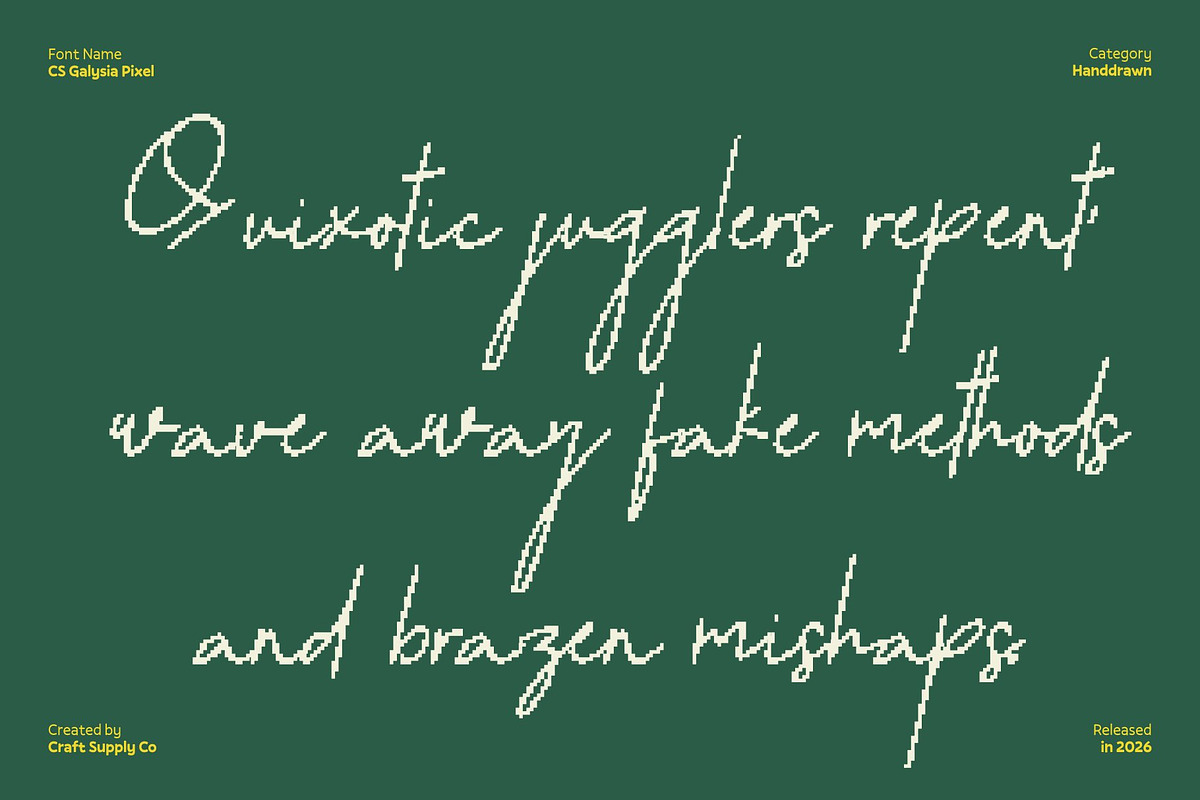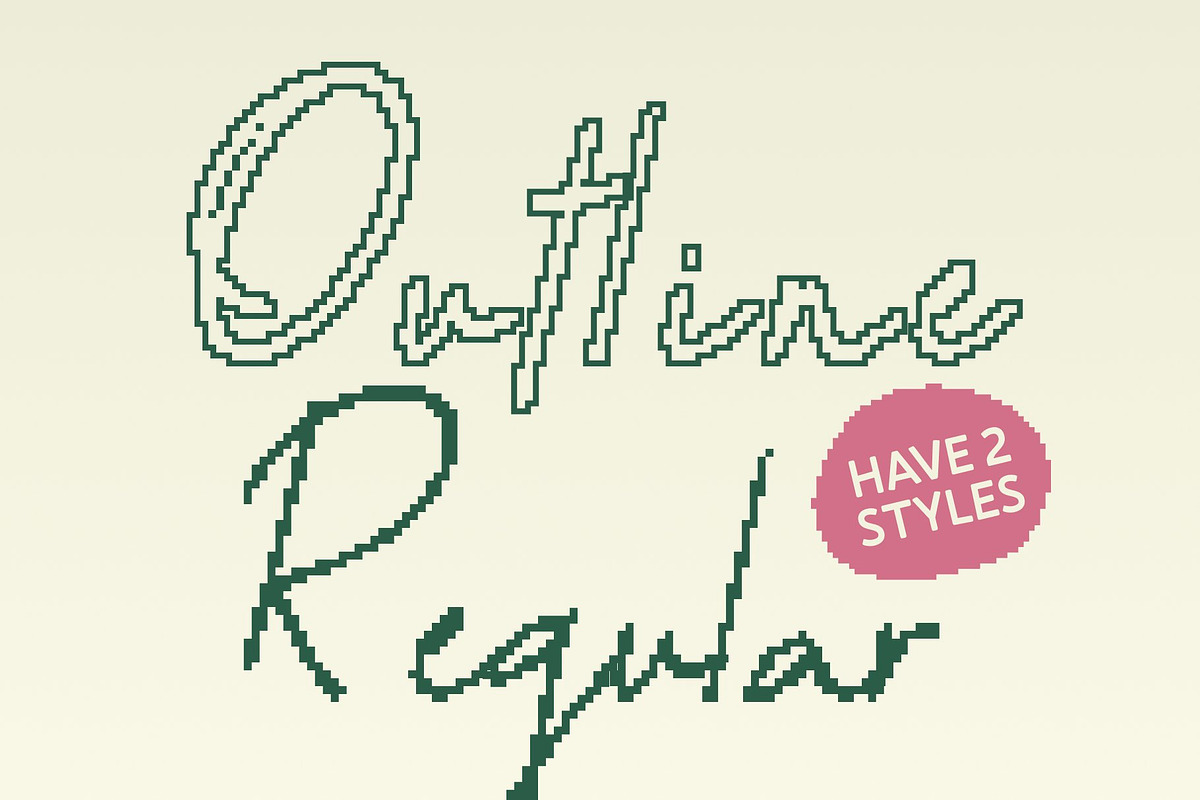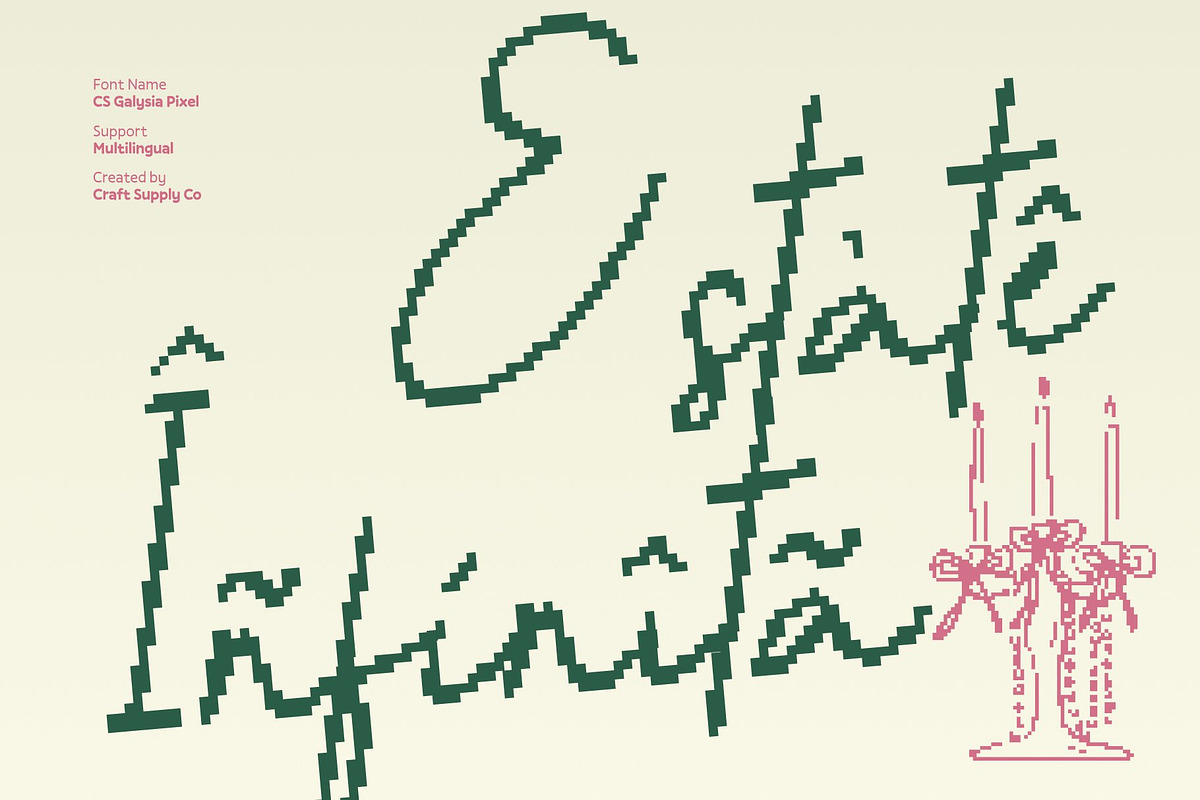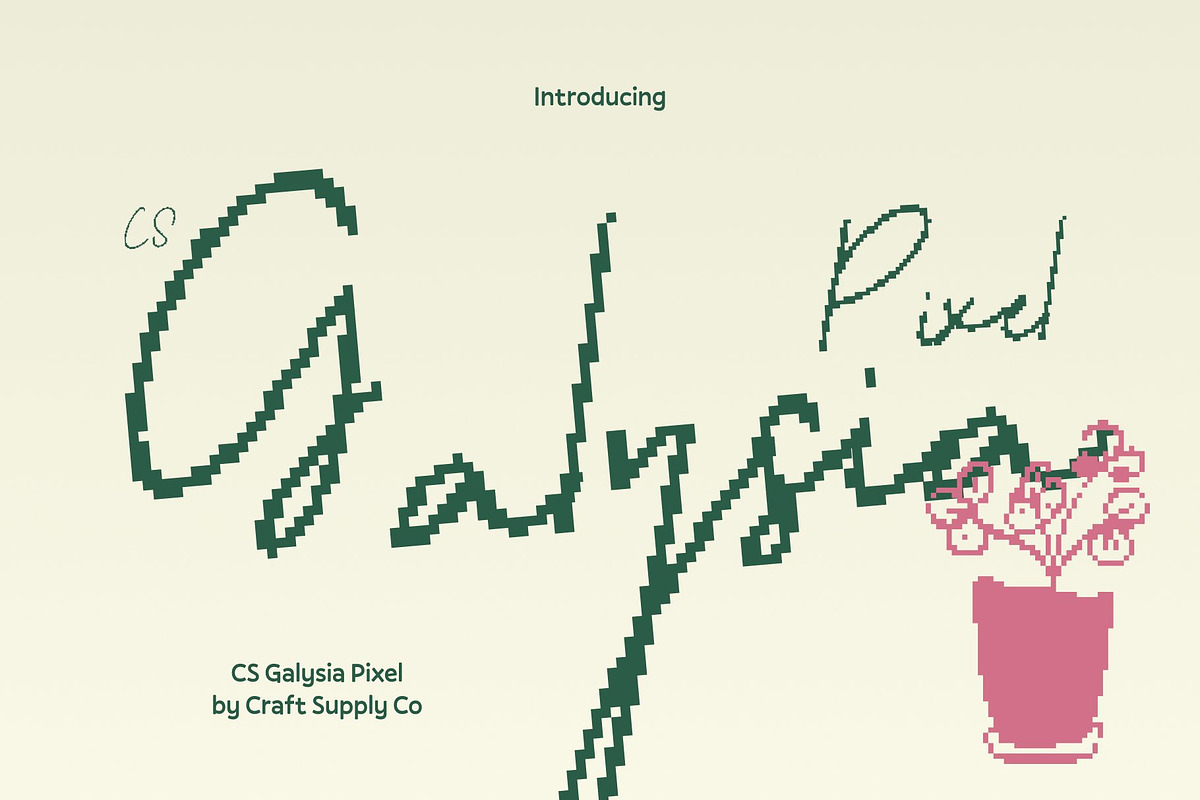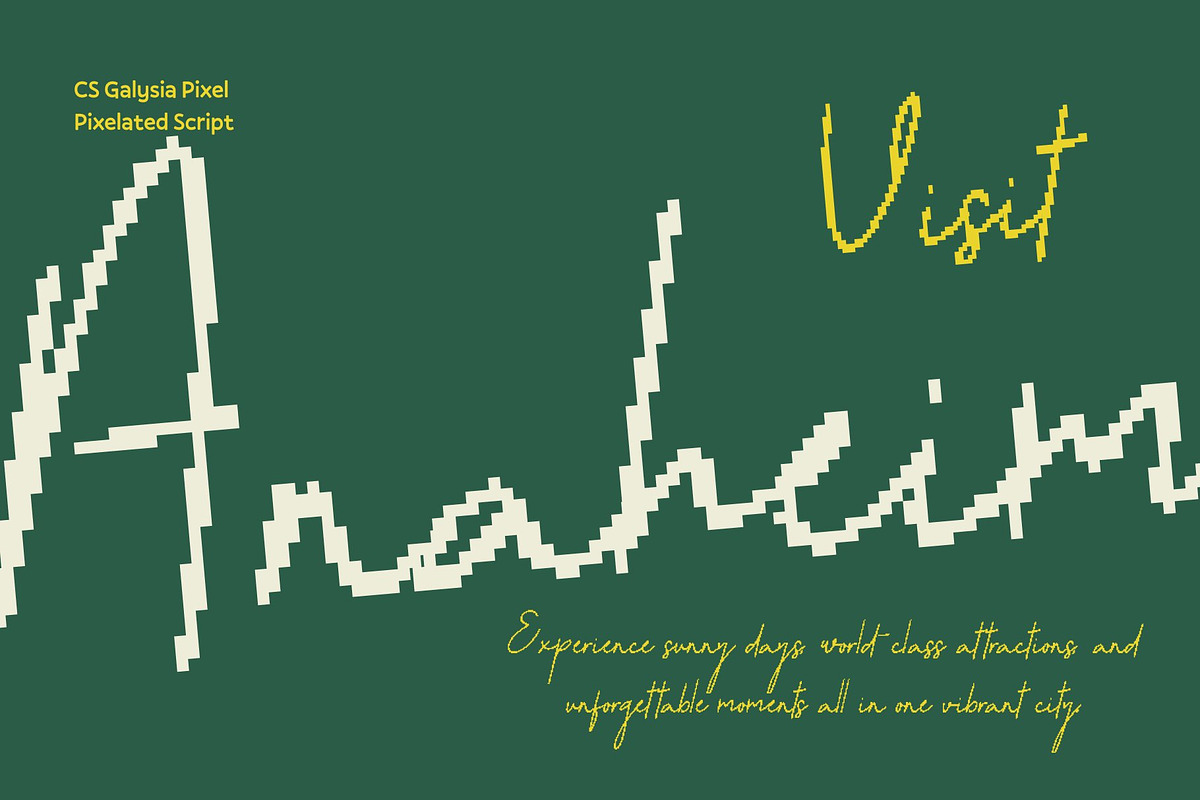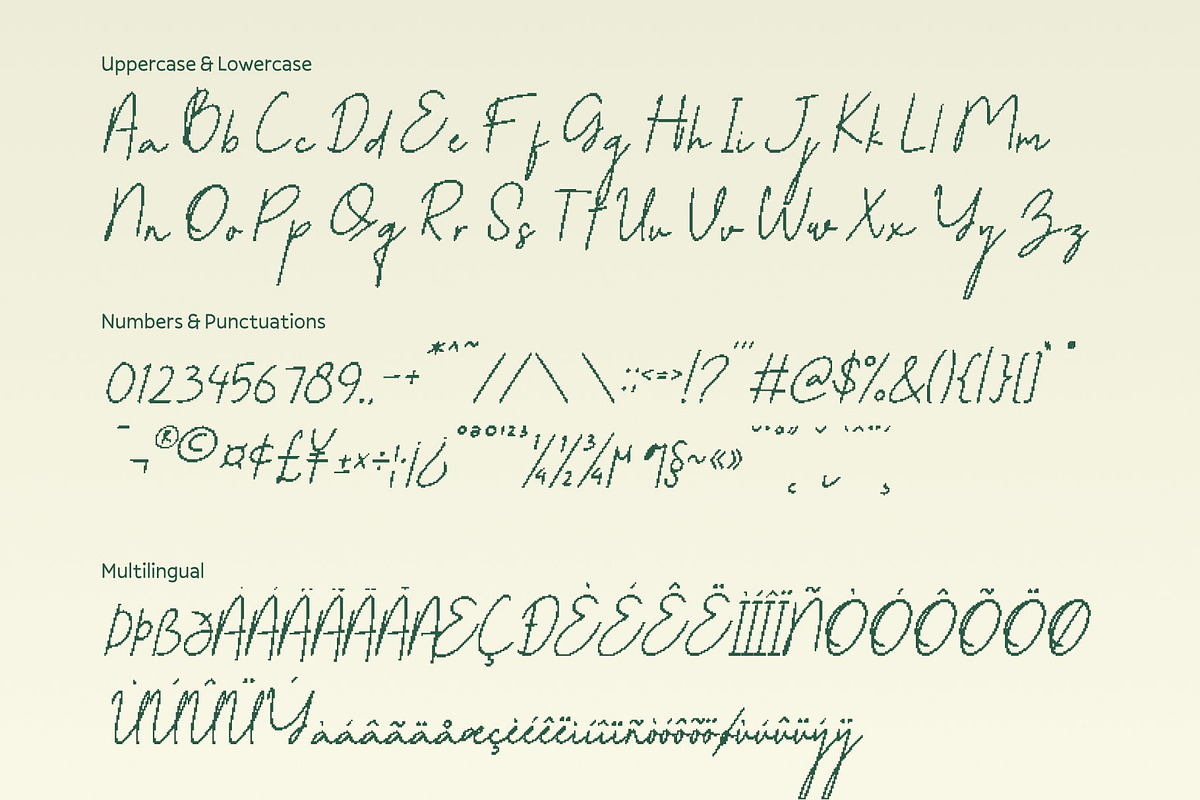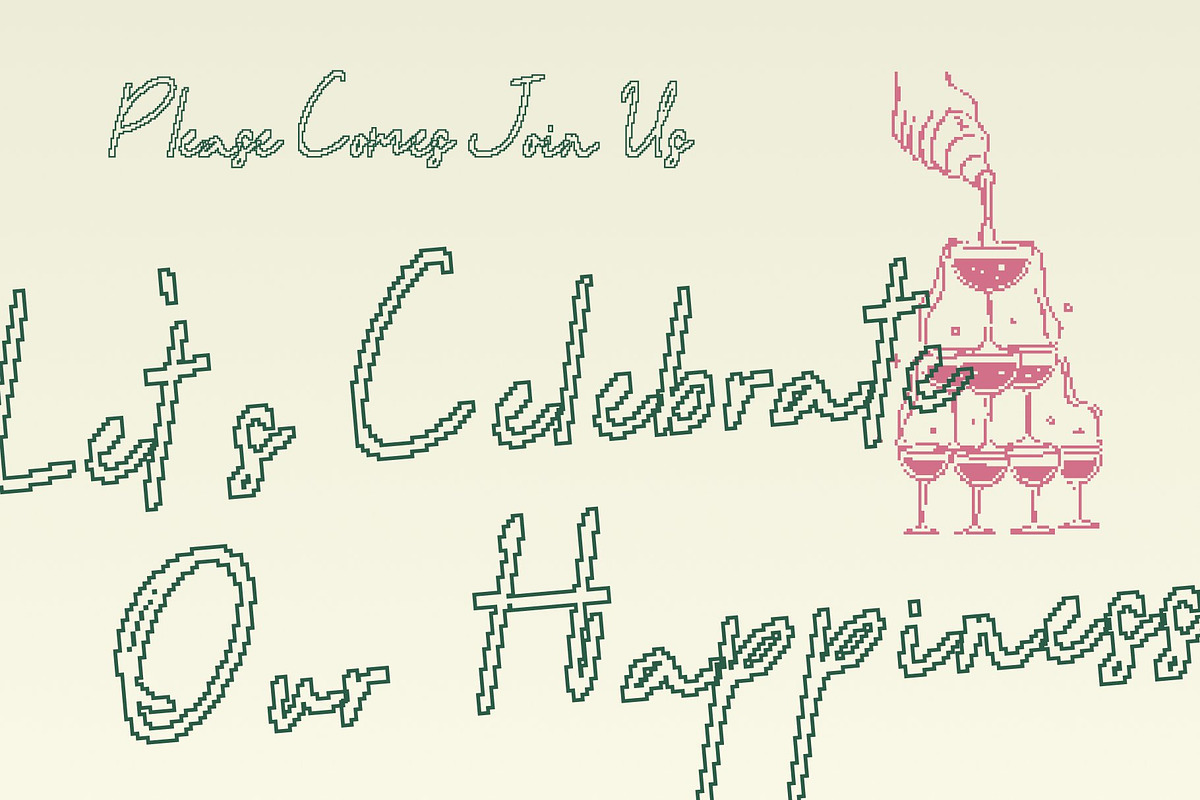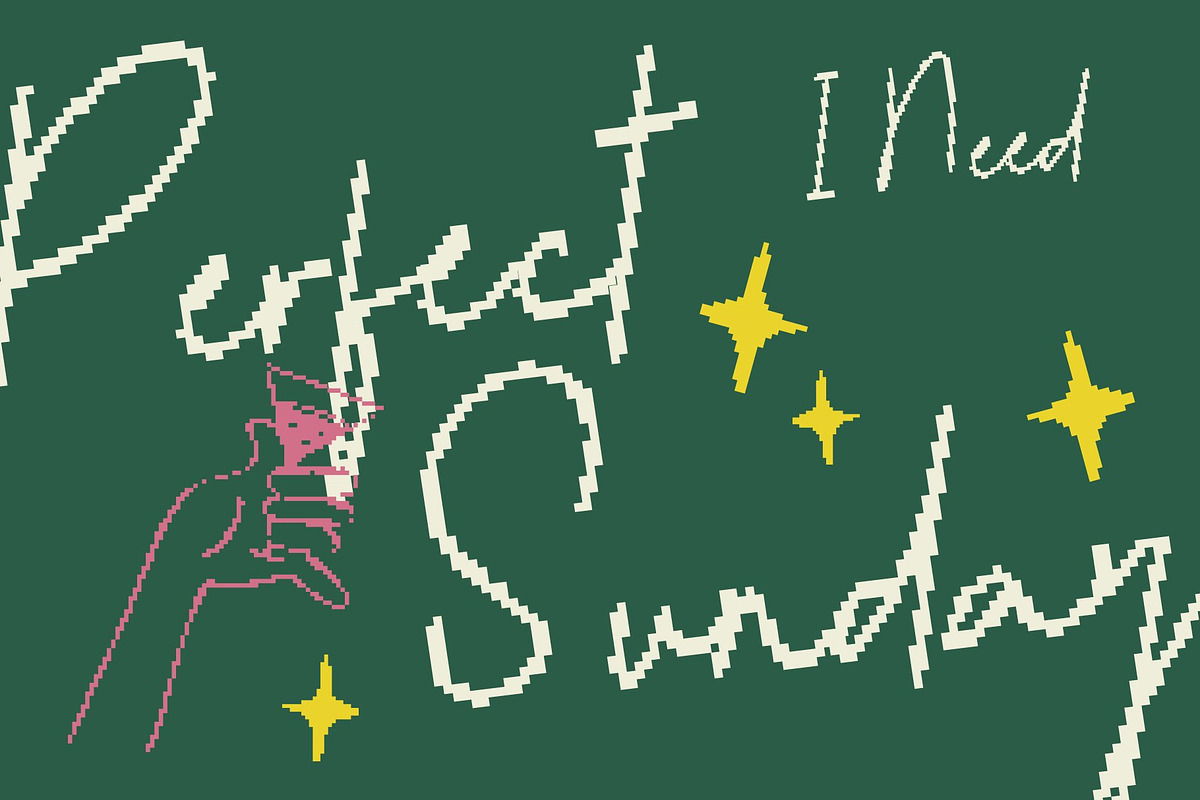
CS Galysia Pixel
CS Galysia Pixel – Romantic Handwritten Script with Mediterranean Charm
Flowing Beauty in Pixel Form This transforms the elegance of Mediterranean handwriting into a pixel-inspired script that radiates charm and sophistication. Its flowing strokes retain the warmth of natural handwriting, while pixel detailing adds a modern, digital-ready edge. Each curve and connection balances romance with precision, making the font both intimate and eye-catching.
Romantic Spirit Meets Digital Sophistication The graceful lines and soft contrasts of this script are enhanced by pixel styling, giving it a unique blend of artistry and tech appeal. It carries emotional depth and aesthetic refinement while appearing bold and structured in digital or retro-inspired layouts. This fusion makes it perfect for designs that want both elegance and contemporary flair.
Ideal for Luxury, Lifestyle, and Creative Projects From wedding invitations and boutique branding to editorial layouts and packaging, this font elevates every composition. The font’s handwritten essence conveys authenticity and personal touch, while its pixel precision ensures visibility and impact across digital screens or nostalgic retro interfaces.
Versatile, Timeless, and Digitally Captivating This font adapts seamlessly across applications logos, social media, stationery, and digital campaigns. Its romantic flow, pixel-enhanced style, and refined structure make it perfect for designers who want to combine heartfelt expression with bold, eye-catching digital appeal. This font is where Mediterranean elegance meets modern technology.